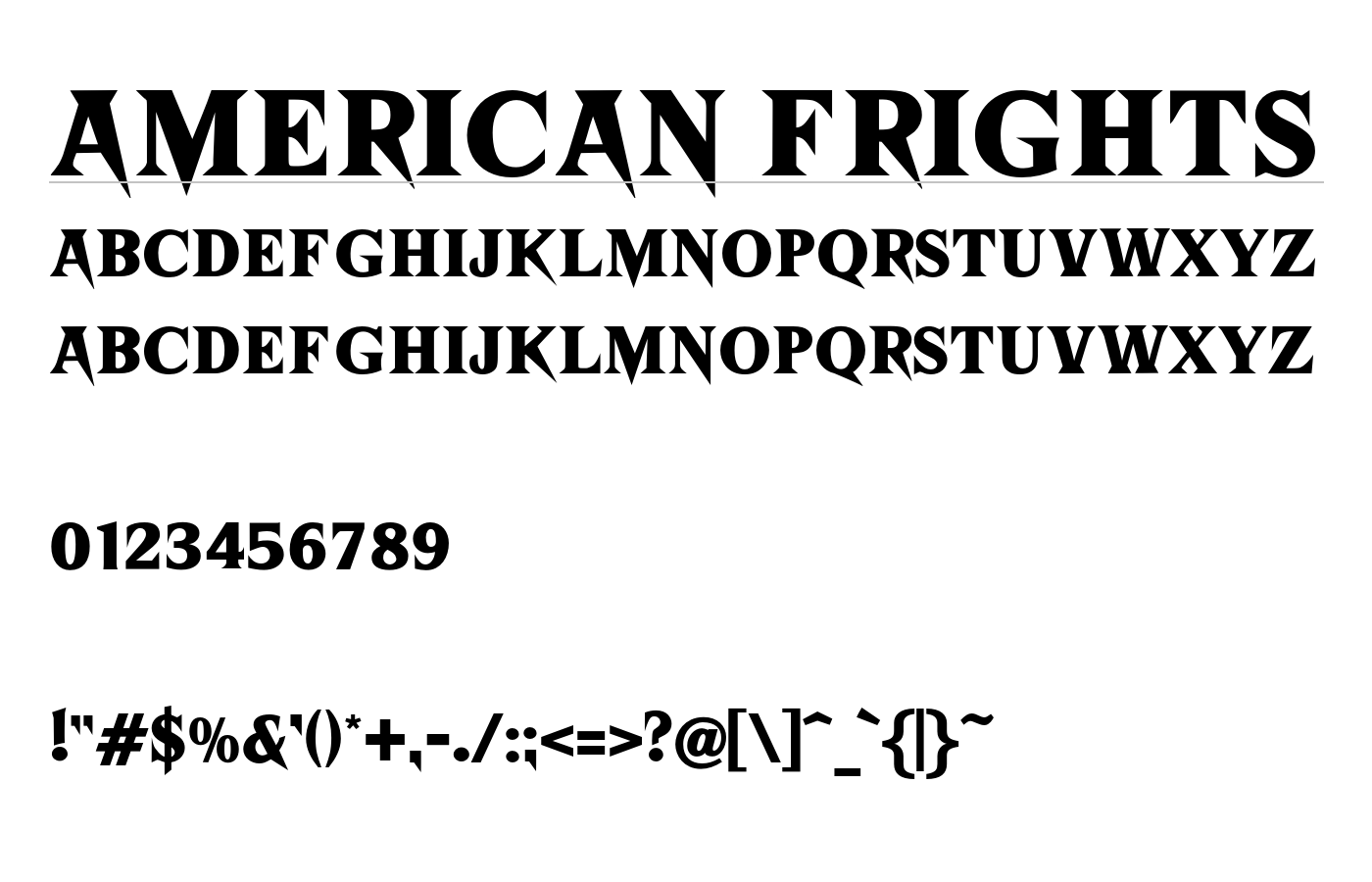
American Frights is a bold serif display font with sharp, dramatic angles that give it a spooky, edgy vibe. Its strong contrast and pointed elements make it perfect for Halloween-themed designs, horror posters, or any project needing a striking, eerie personality. This font stands out best in headlines and logos where a playful yet haunting atmosphere is desired.
American Frights Font
About American Frights Font